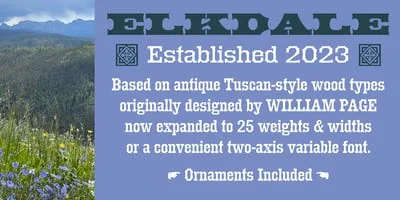
Elkdale Font
Elkdale Font is naturally designed for wilderness lodge branding, national park communications, outdoor adventure guides, wildlife conservation campaigns, hunting outfitter materials, mountain cabin rentals, forest preserve signage, and rustic hospitality presentations. This organic typeface excels in environments requiring wilderness authenticity and natural heritage appeal, making it perfect for eco-tourism companies, wildlife organizations, outdoor recreation businesses, and any organization needing to communicate forest wisdom and natural sanctuary through distinctive typography.
What makes Elkdale Font so exciting is its authentic connection to pristine wilderness environments and majestic wildlife habitats that instantly evokes the tranquil beauty of untouched forests and the noble presence of woodland creatures. The font features organically crafted letterforms with natural proportions and forest-inspired details that reflect the serene strength of elk herds and the timeless beauty of mountain valleys. Its wilderness construction and natural character make it incredibly effective for brands wanting to communicate environmental stewardship, natural authenticity, and wildlife preservation while appealing to audiences who seek genuine wilderness experiences and forest sanctuary.
Elkdale Font typically includes multiple weights and styles such as Light, Regular, Medium, and Bold, often accompanied by rustic variants optimized for outdoor applications. The font family frequently features additional character sets including wildlife symbols, forest icons, and nature glyphs that enhance its wilderness appeal. Each weight maintains the font's distinctive natural character while offering different levels of organic emphasis, providing designers with comprehensive tools for creating authentic wilderness brand identities and nature-focused communication materials.
Wildlife professionals will discover that Elkdale Font delivers outstanding performance in both traditional conservation applications and contemporary eco-tourism marketing materials requiring wilderness credibility. The font's carefully crafted character set includes nature-appropriate letterforms, wildlife symbols, and forest elements essential for conservation branding, outdoor recreation marketing, and environmental education materials. Its organic design makes it particularly effective for national parks, wildlife refuges, eco-lodges, and conservation-oriented marketing campaigns requiring authentic wilderness presence.
The thoughtful attention to natural proportions and organic spacing ensures that Elkdale Font maintains excellent readability while delivering maximum environmental impact. Its wilderness-inspired design language makes it particularly effective for eco-tourism applications, wildlife conservation, outdoor recreation, and environmental education. The font's serene appearance creates strong natural connections while remaining highly functional for projects requiring clear communication to nature enthusiasts and conservation-minded communities.
For designers seeking a typeface that embodies wilderness majesty with natural authenticity, Elkdale Font represents an exceptional choice that will ground any project with its distinctive tranquility and forest character.